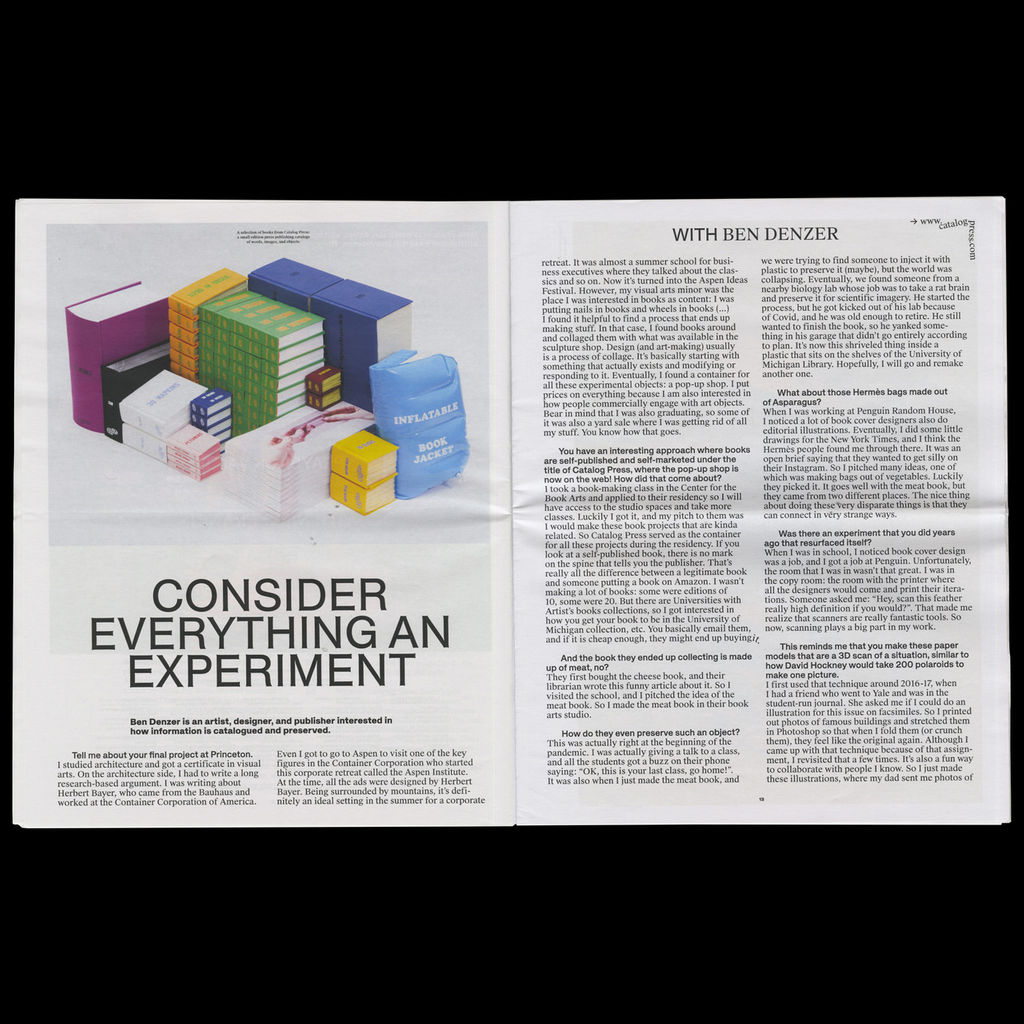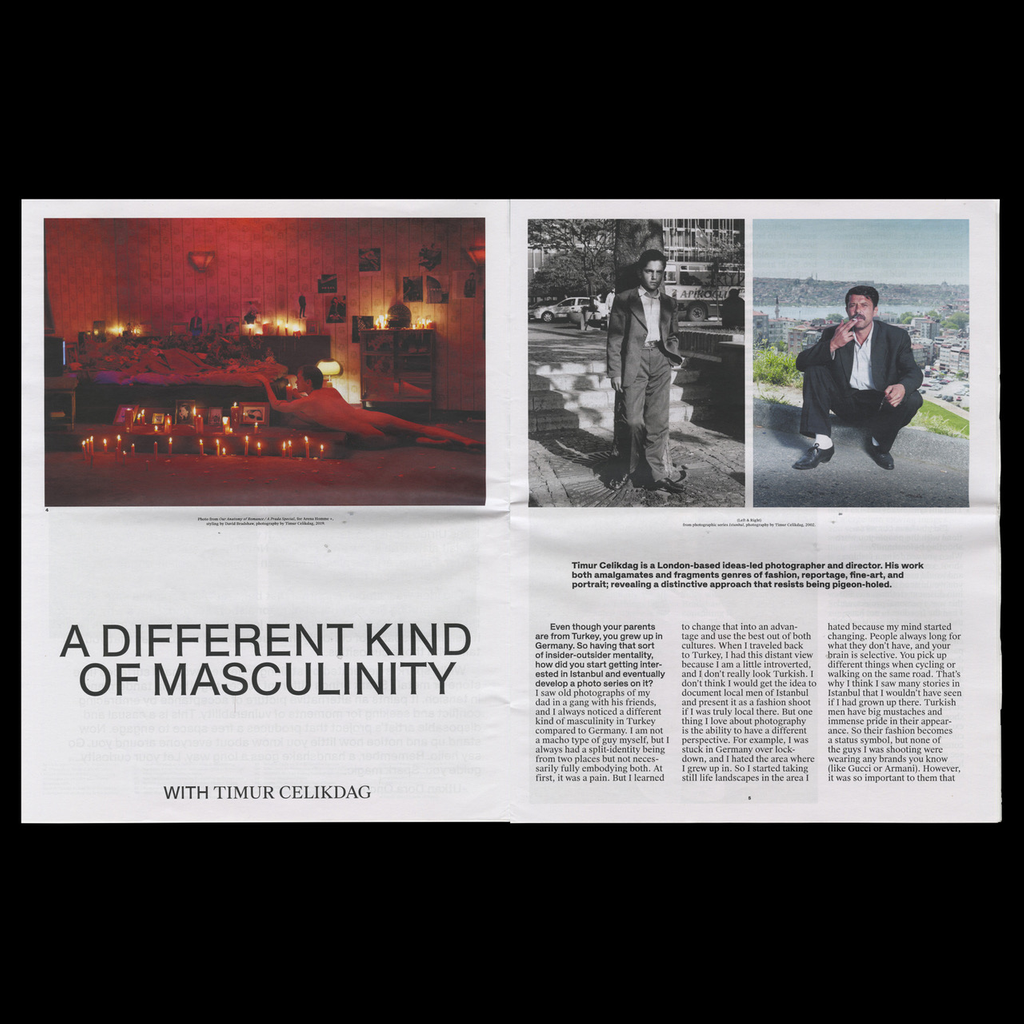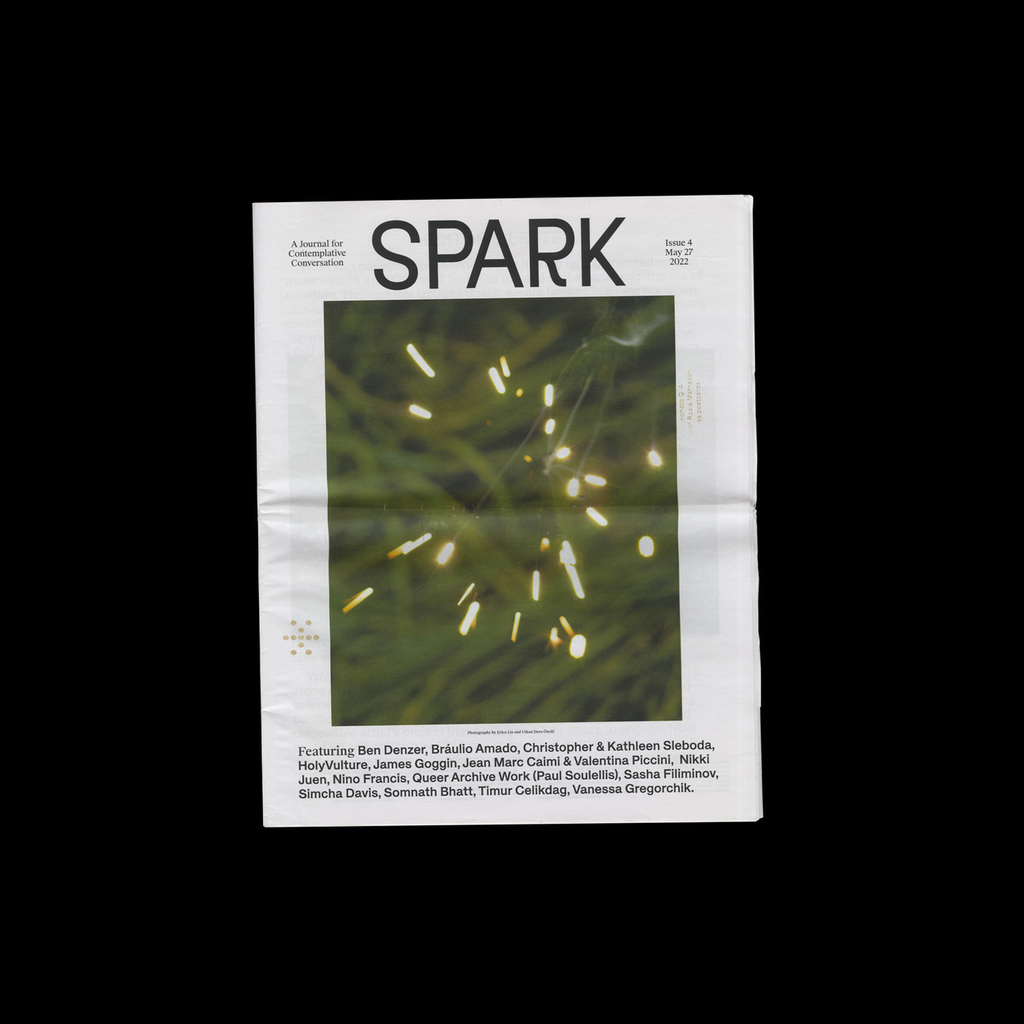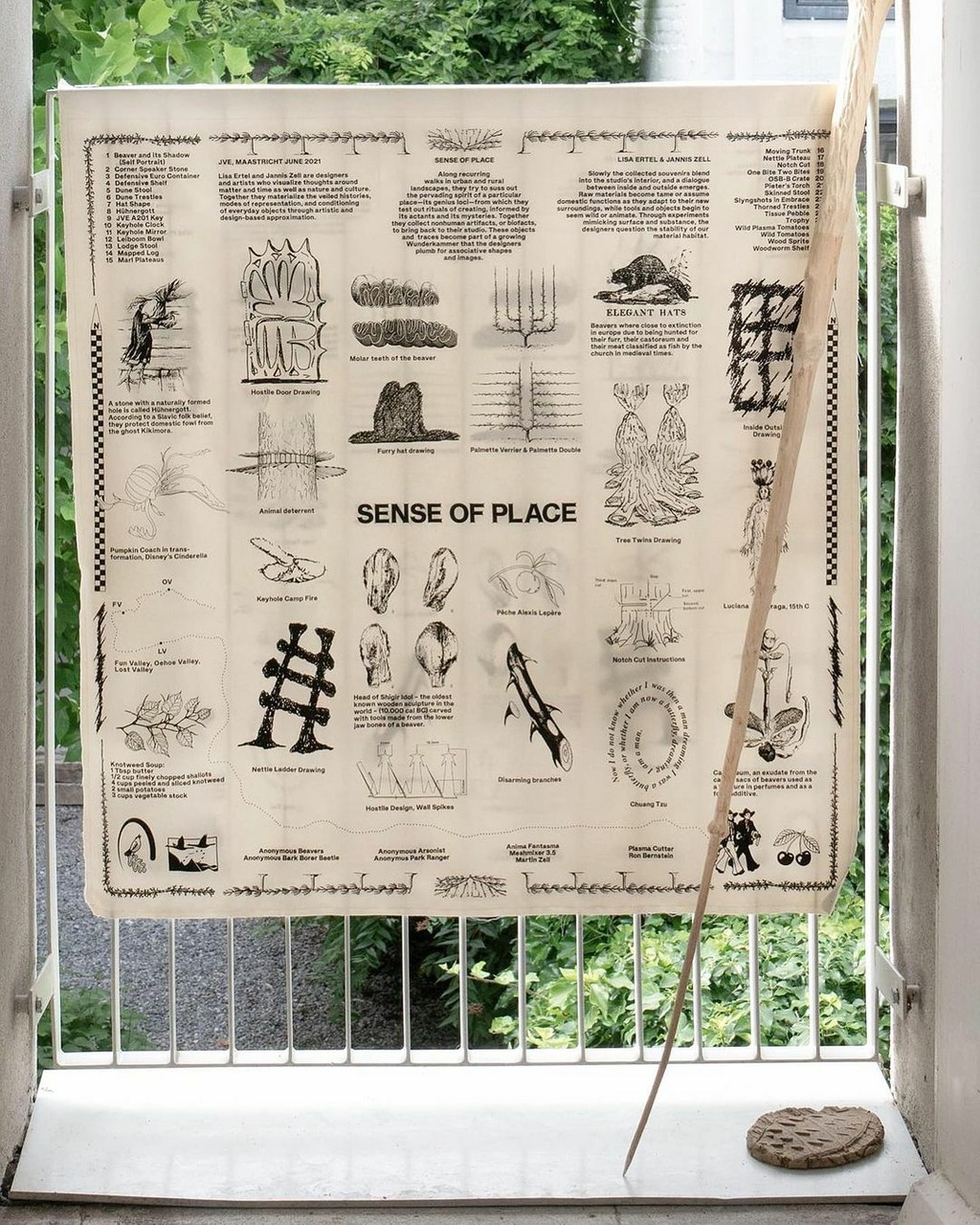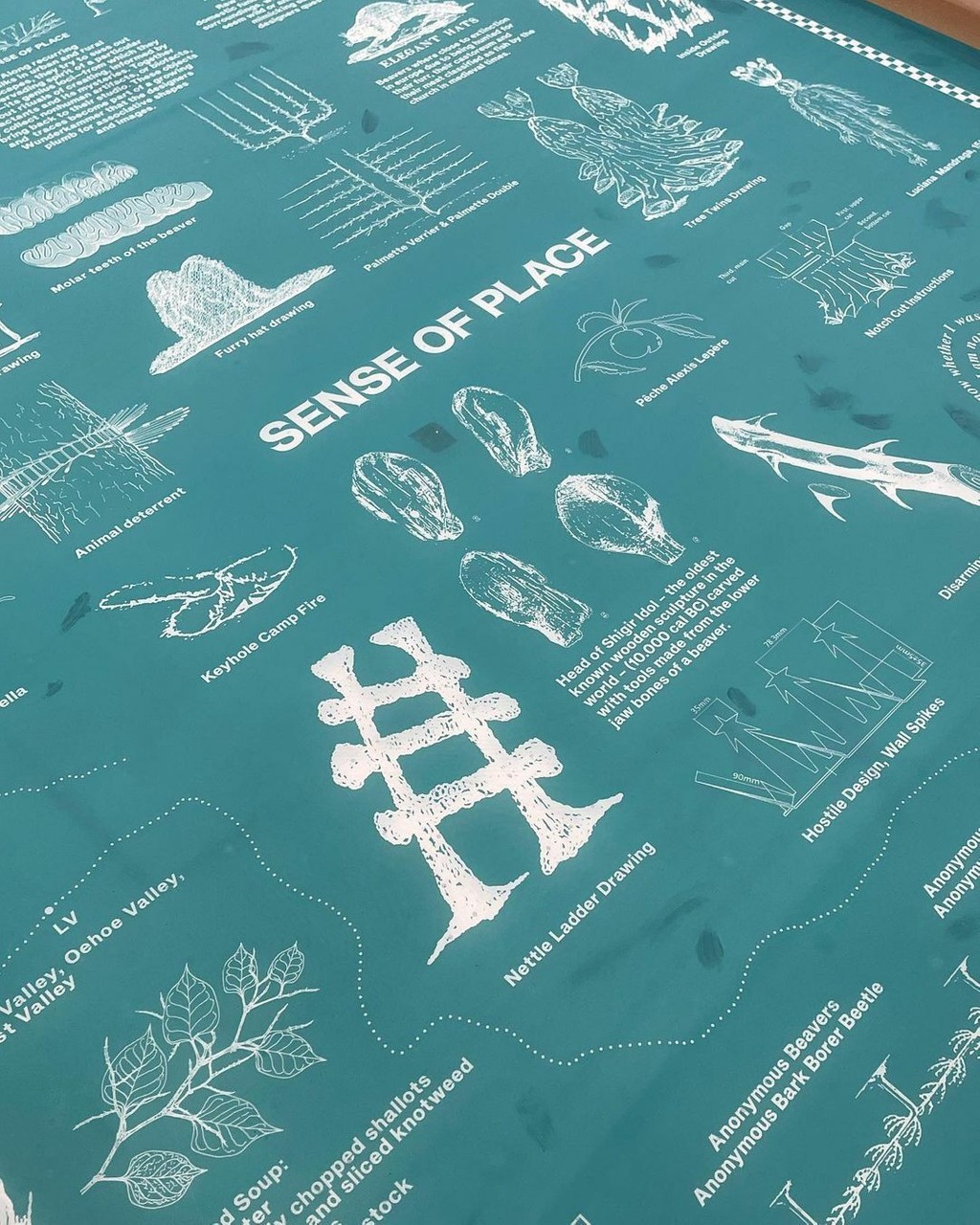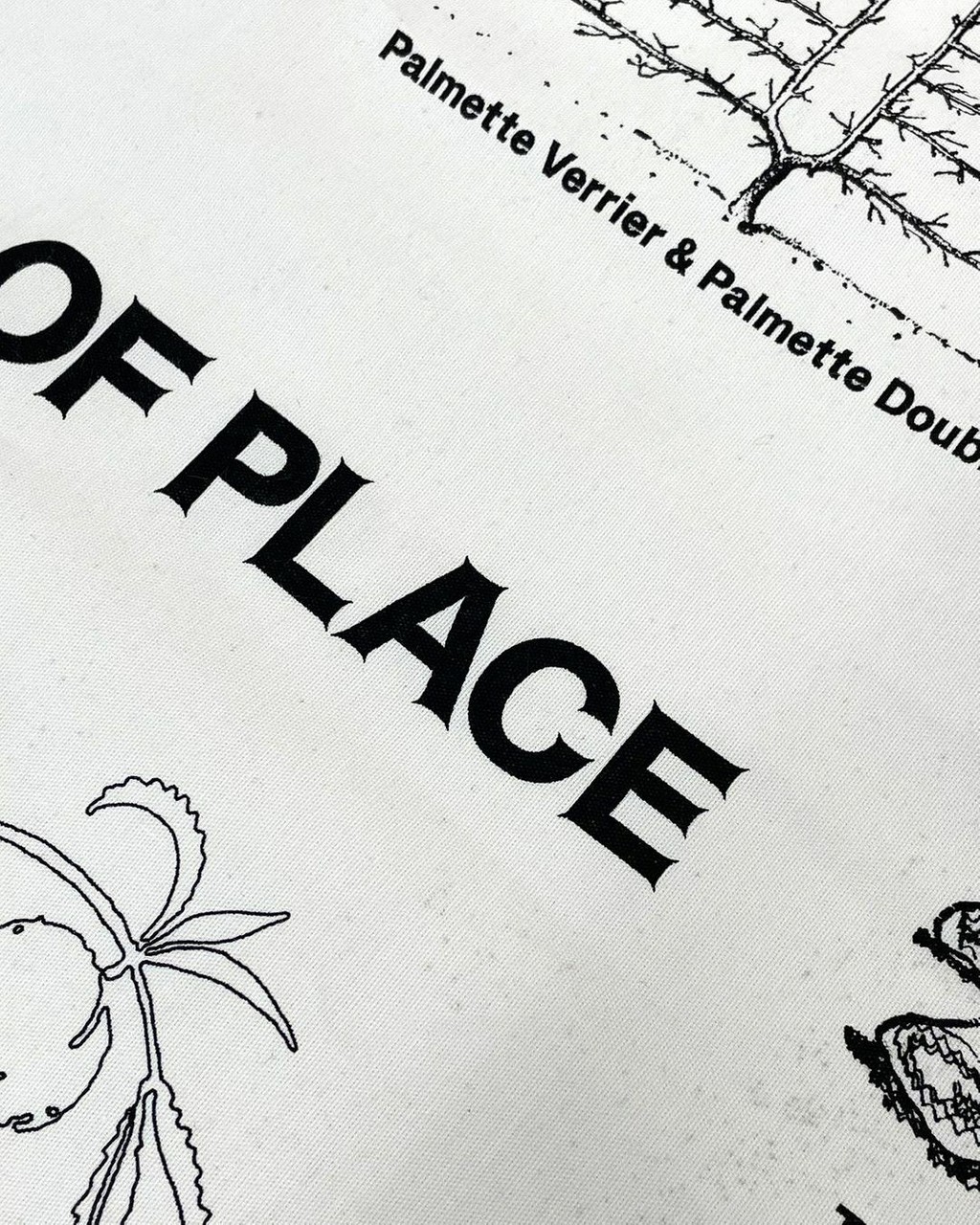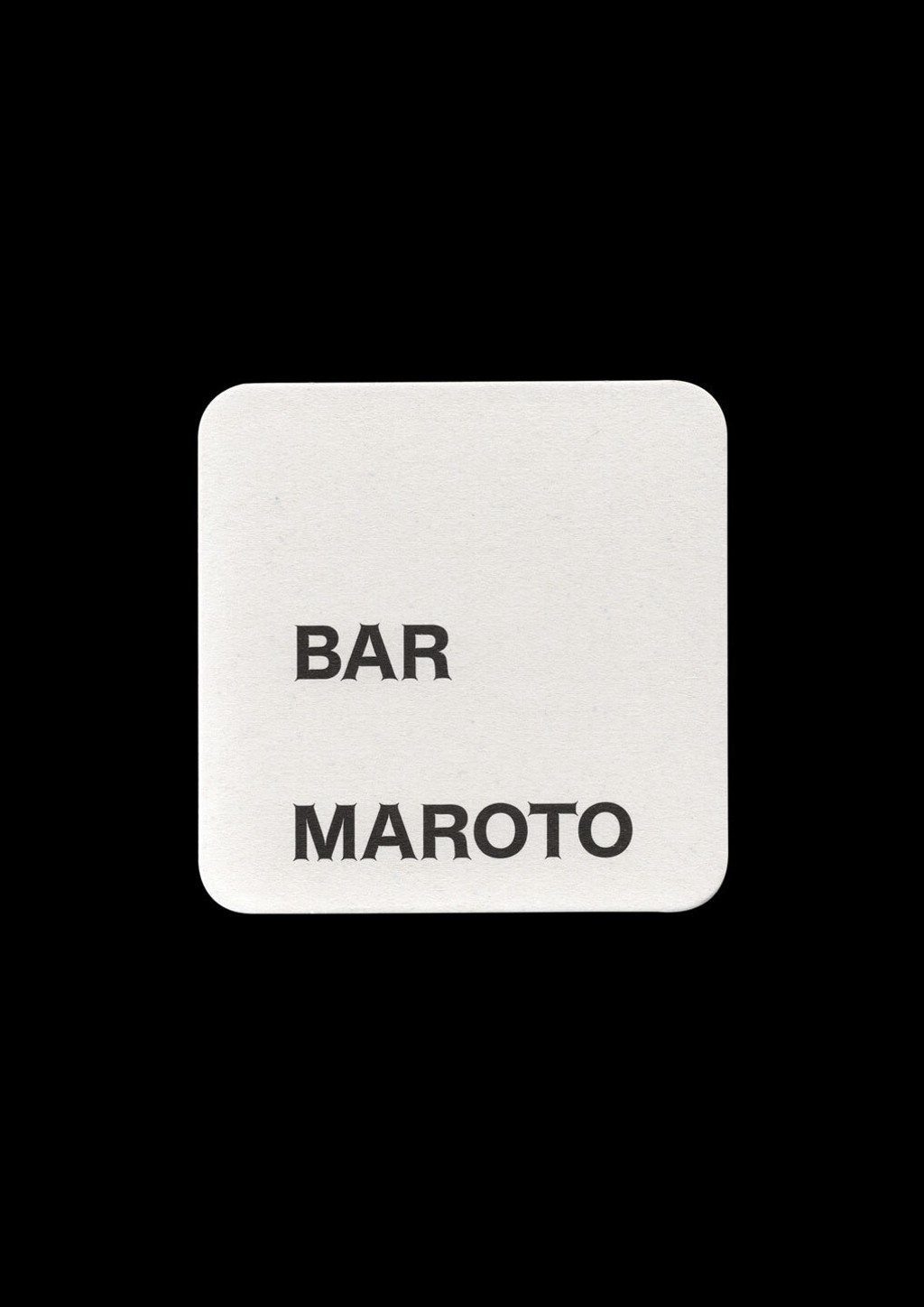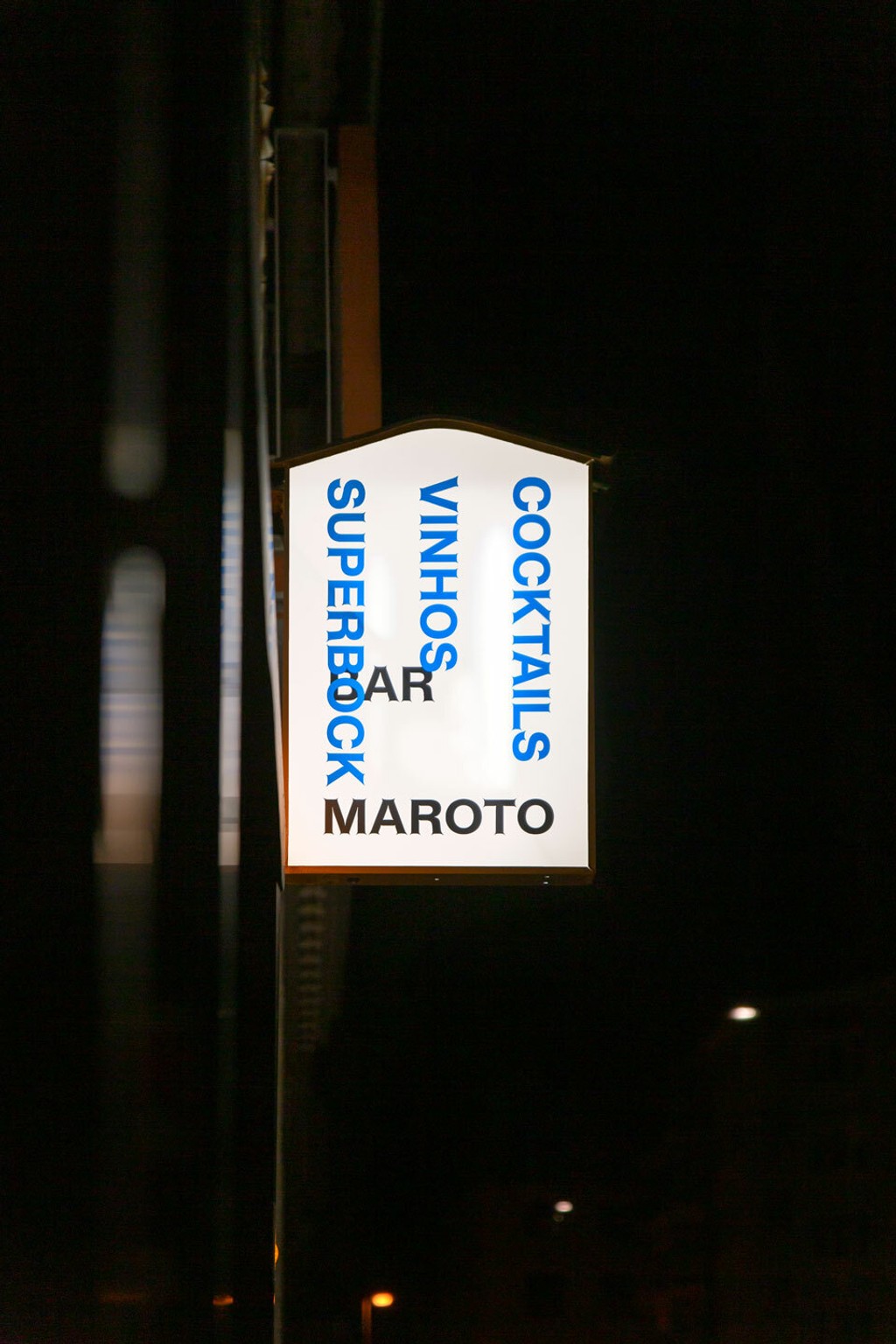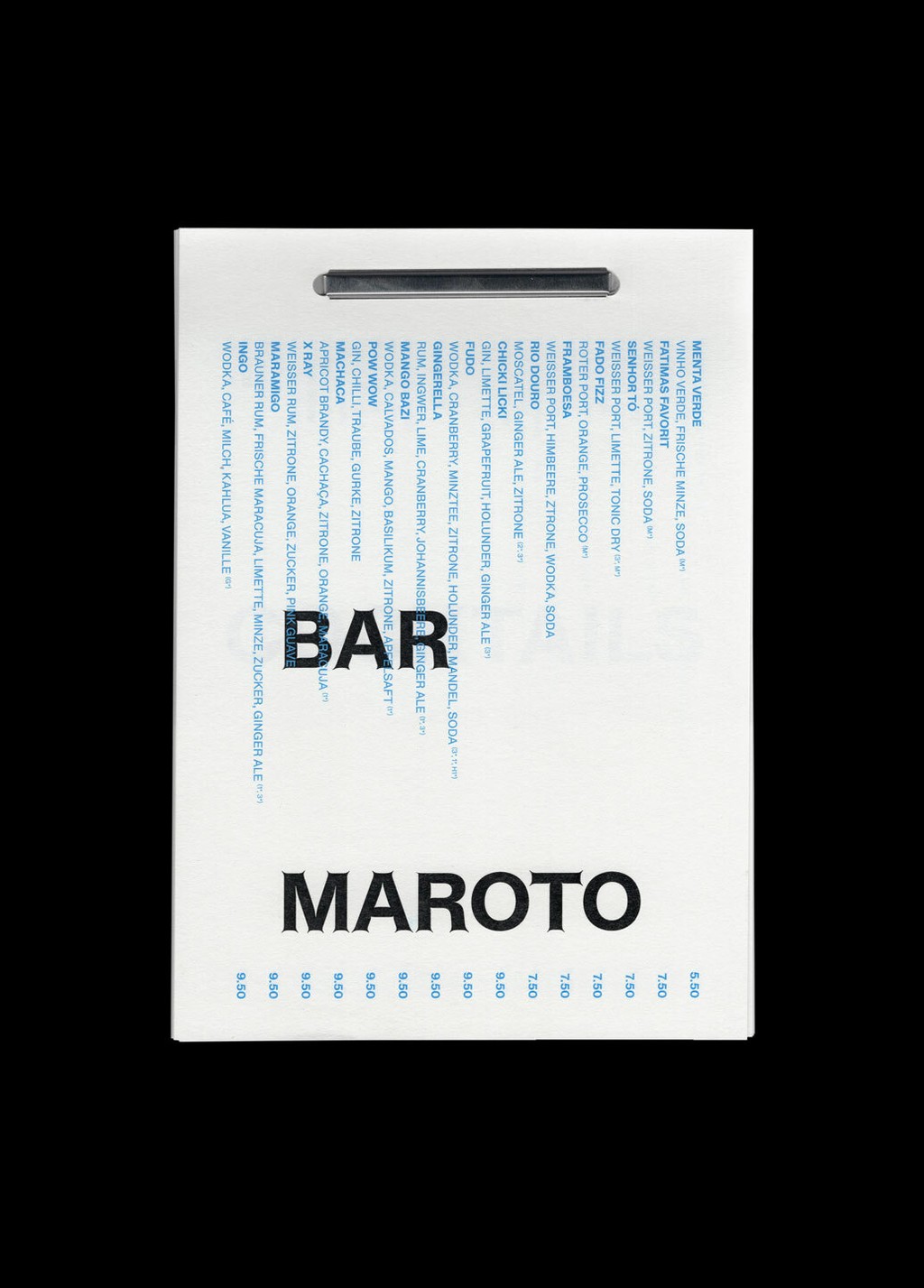
Helveesti
Alt u, y, G and R
Grouse Rye
Alt a
a → a
About Helveesti
About this typeface
When Dinamo was invited to teach a type class in Tallinn, Estonia during the winter months of 2014, Fabian found himself as he often does in a second hand book store, thumbing through a pile of vintage children’s books. One particular title caught his eye, featuring what appeared to be a Soviet-era clone of Helvetia. The typeface’s light traps—i.e. its spiked corners stemming outwards like mutated tails—were designed to help compensate for blurring during the phototypesetting era. The children’s book displays its entire alphabet at the back; all the better for learning the ABCs for some, but in our case, all the better for the task of digitization.
Design: Dinamo (Fabian Harb, Robert Janes, Johannes Breyer, Fabiola Mejía) with Andree Paat
Spacing and Kerning: Igino Marini
Production: Dinamo (Robert Janes)
Helveesti In Use
Sense Of Place. Design by Jannis Zell
Bar Maroto. Design by OFF OFFICE (Johannes von Gross, Markus Lingemann, Leonie Seitz, Sophie Haslberger.) Coding: Marcel Diedrich
Karel Martens: Re-Production. Poster Design by Zhengzhong Pan
Spark Journal Issue 4. Publication by Utkan Dora Öncül